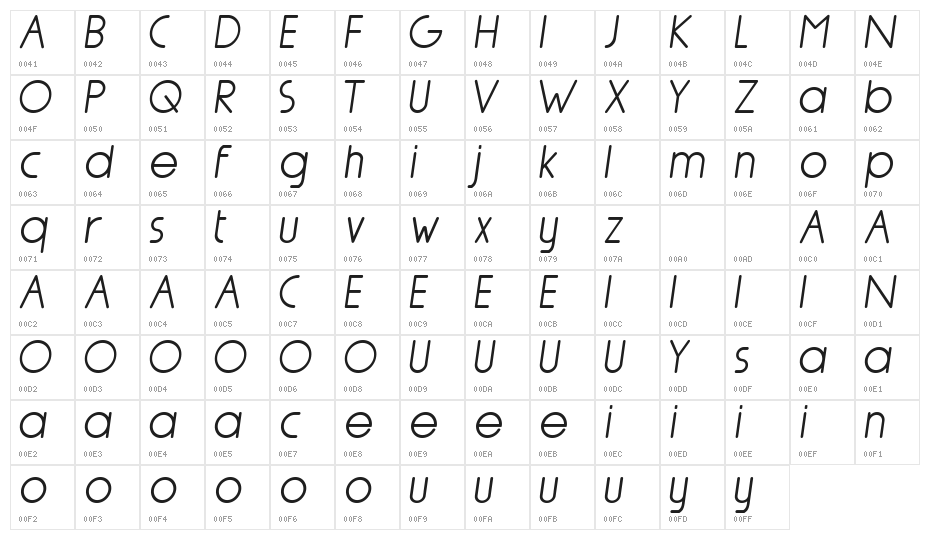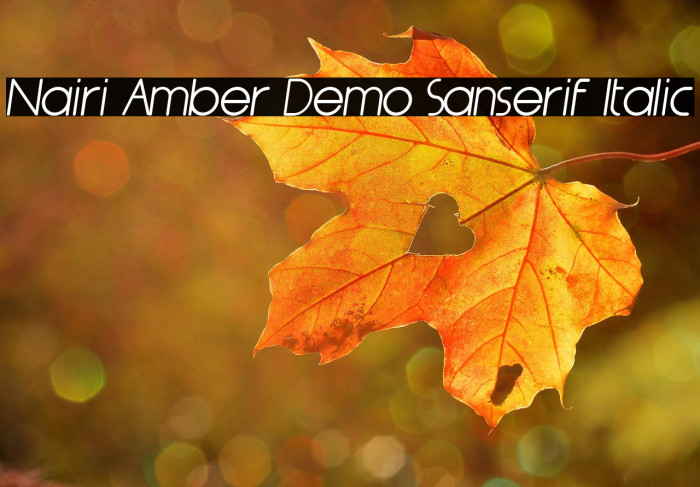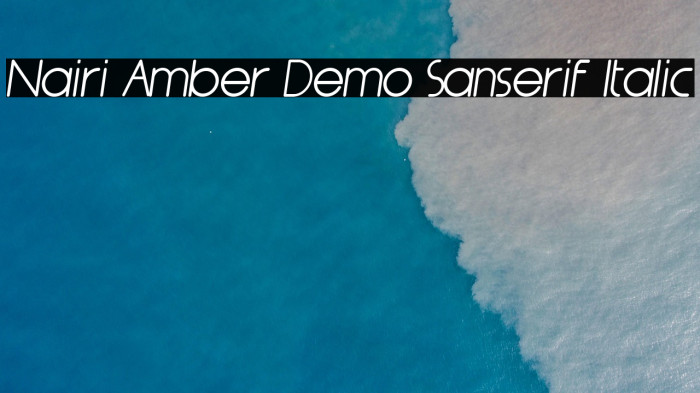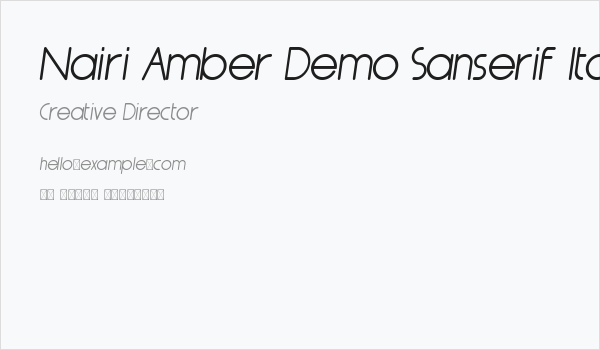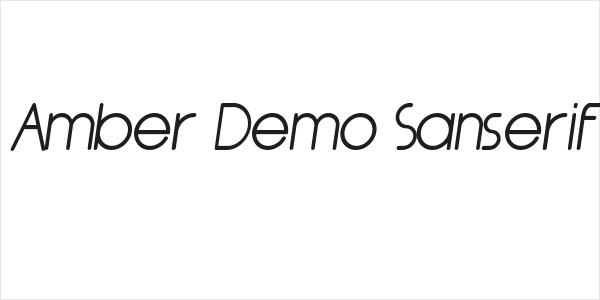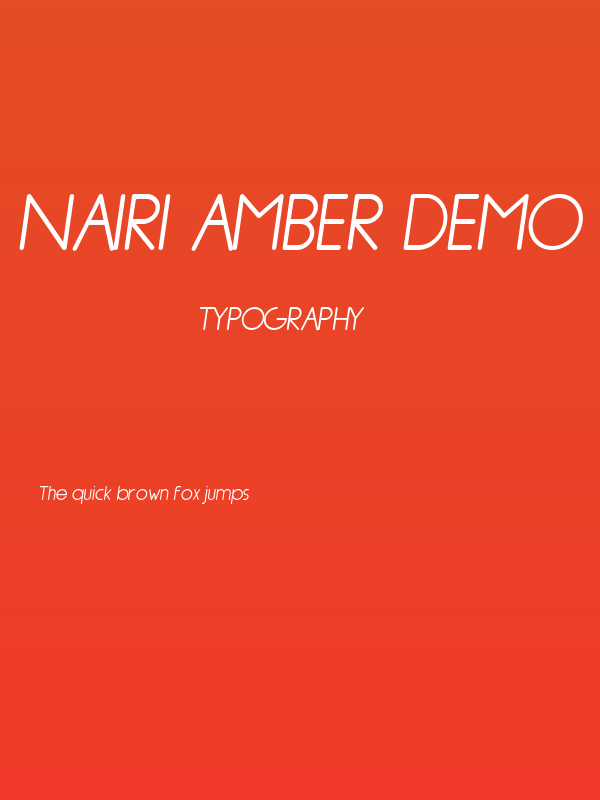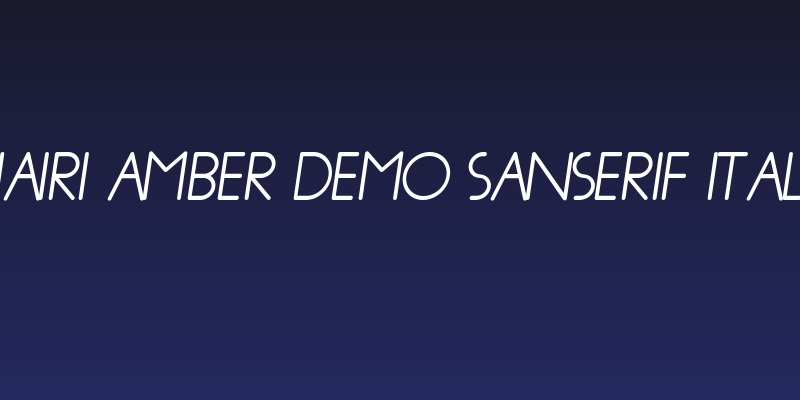
Nairi Amber Demo Sanserif Italic Font
Nairi Amber Demo Sanserif Italic Description
This font features a sleek, modern sans-serif style with a distinct italic slant, giving it a dynamic and forward-moving appearance. The characters are crafted with smooth, clean lines and a consistent stroke width, creating a harmonious and balanced look. The uppercase and lowercase letters maintain a uniform height, contributing to a cohesive visual flow. The font's design is minimalist yet elegant, making it suitable for a variety of contemporary design projects. Its simplicity and clarity ensure readability while adding a touch of sophistication.
| Proposed Projects | Ideal for branding, advertising, digital media, and editorial design projects. |